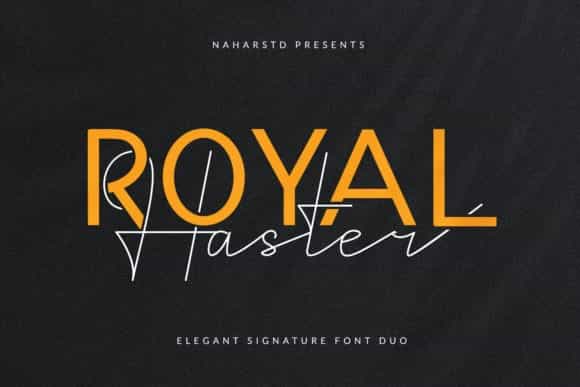
Discover Royal Haster Font Duo, part of the Sans Serif Handwritten collection—a versatile and unique font perfect for adding a personal touch to your projects. Download it for free and enjoy crafting designs with style, from invitations to social media posts. This font is available exclusively for personal use, giving you the freedom to create without limits. Unlock your creativity with Royal Haster Font Duo today!
“Royal Haster” a stylish sans serif and cursive font. The old school sans serif font and the free-flowing signature script are all stylish. A piece of cake to use in your design projects, such as logos & branding, wedding designs, social media posts and advertisements.